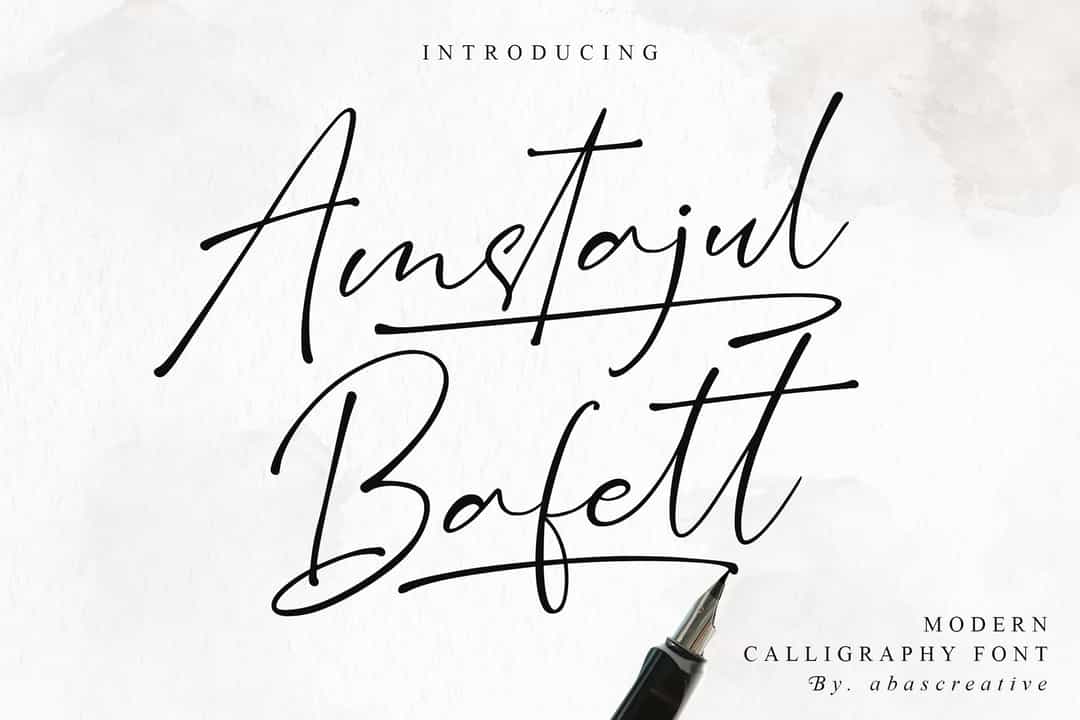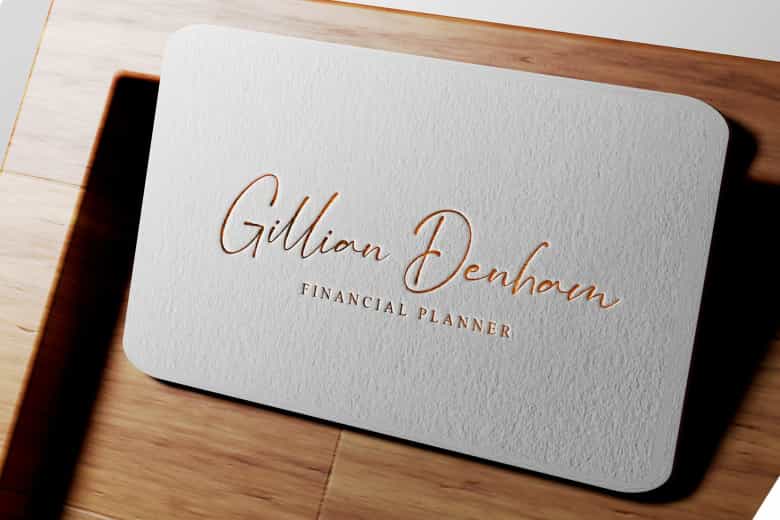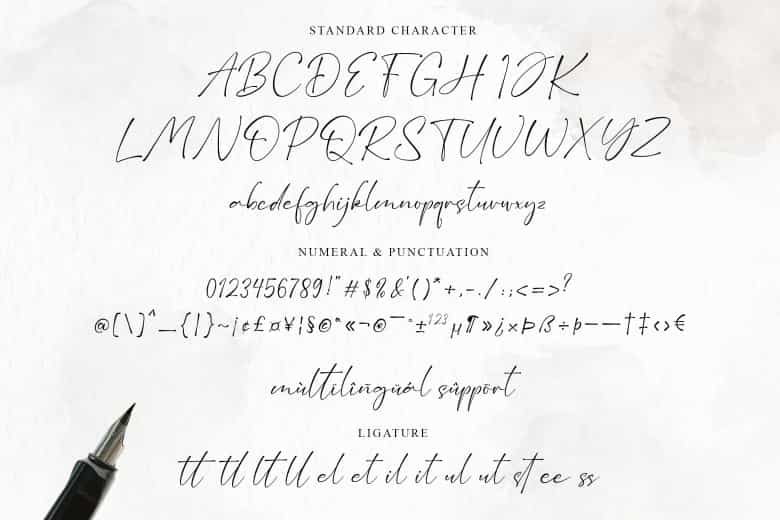
Amstajul Bufett is an elegant handwritten script font, thus it is perfect for wedding invitations, stationary stationery for photographers pages in Facebook, packaging of products, greeting cards and so much more!